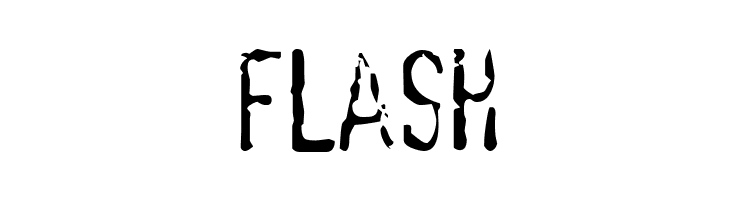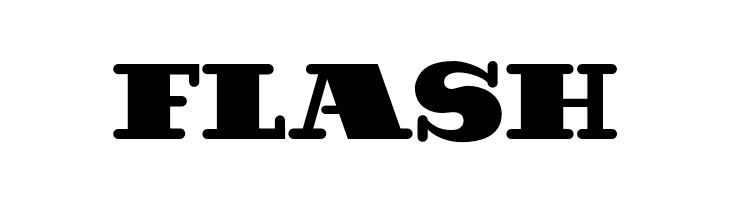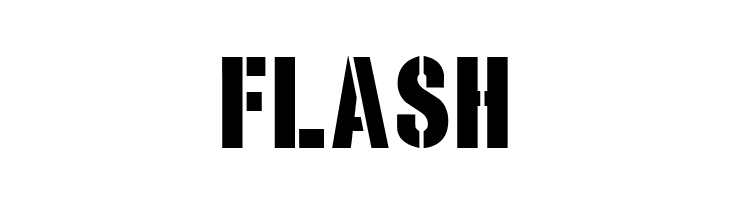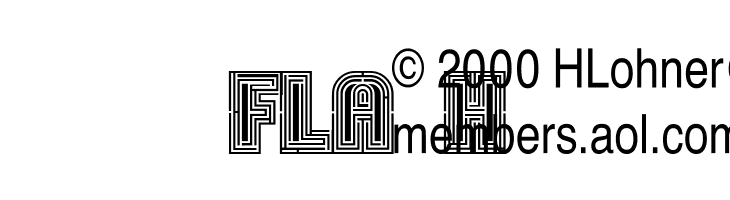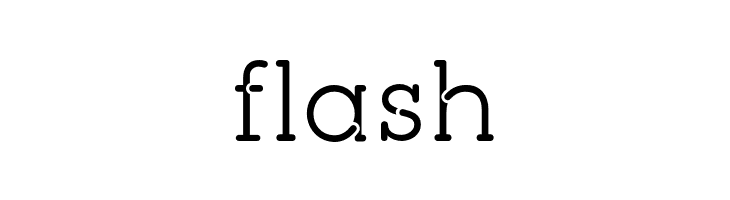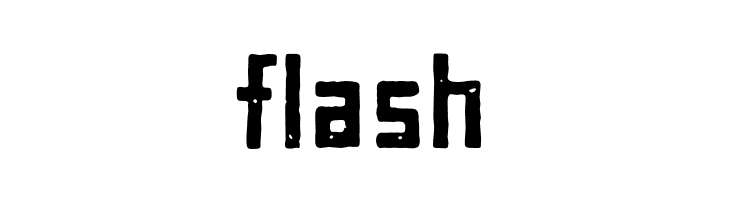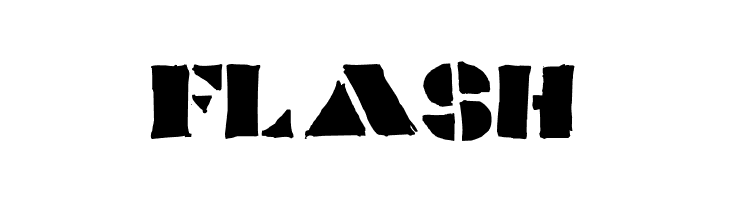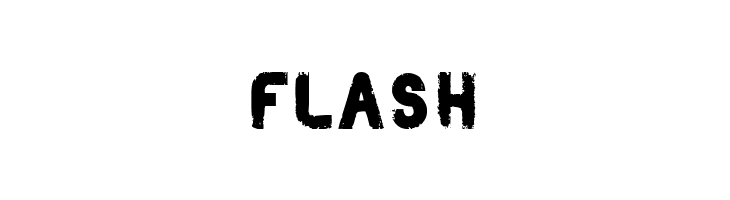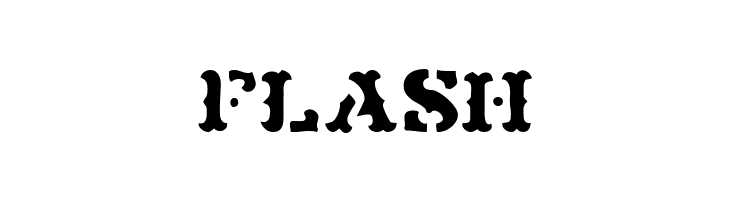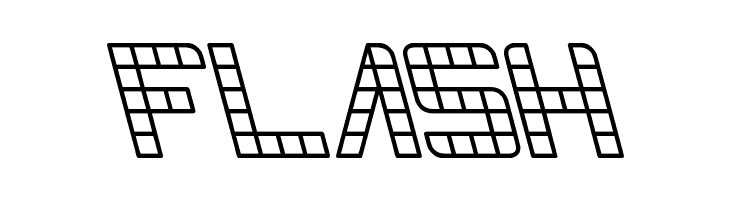
A bold, geometric font with a layered outline effect and modern industrial style.
A modern stencil font with geometric lines and distinct breaks, offering a bold and industrial aesthetic.
A bold, distressed font with a vintage, industrial aesthetic.
A bold, stencil-like font with a rugged, industrial appearance.
A bold stencil font with a rugged, industrial aesthetic.
A bold, distressed font with a vintage, industrial feel.
A bold, stamped-style font with characters enclosed in rectangular borders.
Illustrative, tool-themed decorative font with high visual complexity.
A bold, brick-patterned font with a modern, industrial aesthetic.
A bold, stencil-style serif font with high contrast and industrial appeal.
A bold, oblique font with a dynamic and modern industrial style.
A bold, distressed font with a rugged, industrial aesthetic.
A bold, textured font with a vintage, industrial style.
A bold, geometric stencil font with a modern industrial feel.
A bold, geometric, and condensed font with a futuristic and industrial aesthetic.
A bold, distressed font with a vintage, industrial aesthetic.
A bold, distressed font with a pixelated, grunge style.
A bold, rounded font with an industrial, mechanical aesthetic.
A bold, stencil-like font with geometric shapes and cut-out sections.
A bold, distressed font with a vintage, industrial style.
A bold, blocky font with an urban, industrial aesthetic.
A bold, industrial font with a three-dimensional, geometric design.